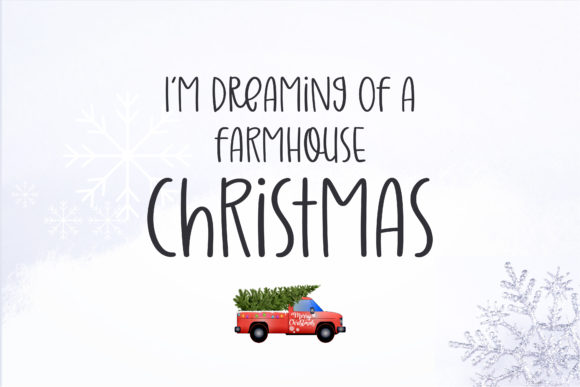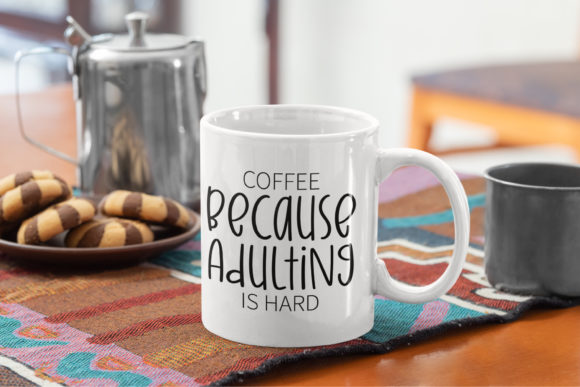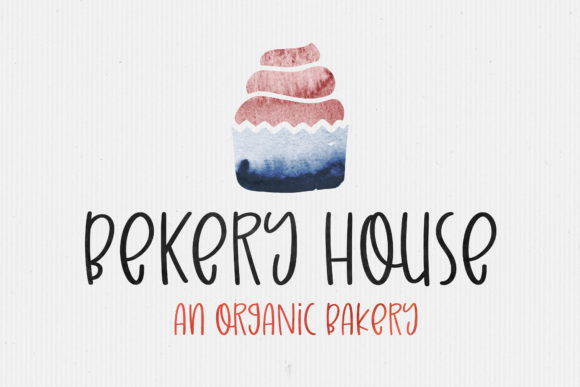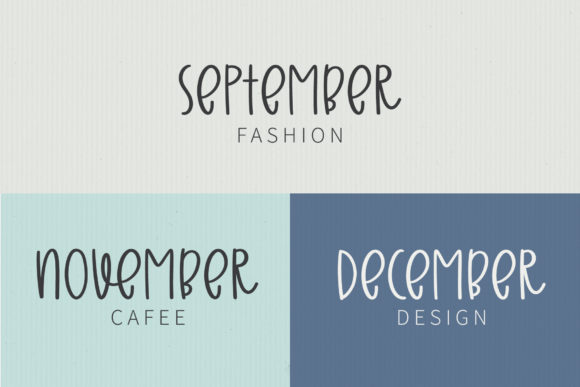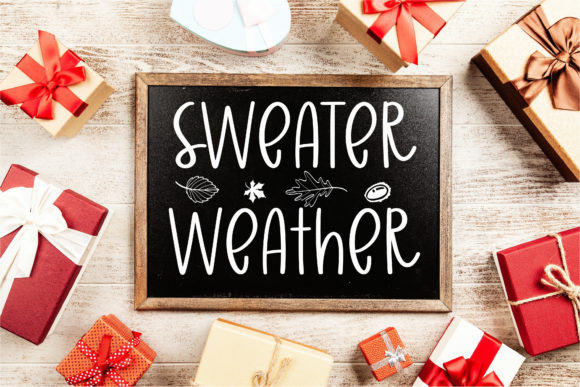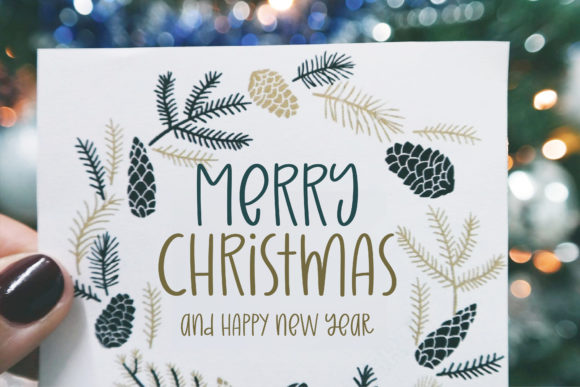
Introducing Farmhouse Christmas Font: A Sweet and Friendly Handwritten Delight
Are you looking for a font that captures the essence of the holiday season with a touch of rustic charm? Look no further than the Farmhouse Christmas font! This sweet and friendly handwritten font is perfect for designers and crafters who want to add a personal touch to their holiday projects. In this article, we’ll dive into the world of Farmhouse Christmas font and explore its features, uses, and benefits.
A Natural and Unique Style
Farmhouse Christmas font boasts a natural and unique style that makes it incredibly fitting for a wide range of designs. Its handwritten charm is reminiscent of a warm and cozy holiday evening by the fireplace. The font’s rustic feel is perfect for creating a sense of nostalgia and warmth in your designs, making it ideal for holiday projects, invitations, and decorations.
One of the standout features of Farmhouse Christmas font is its versatility. Its natural and unique style allows it to be paired with a variety of design elements, from simple and elegant to bold and playful. Whether you’re creating a holiday card, a festive banner, or a cozy winter scene, Farmhouse Christmas font is the perfect choice.
The only limit to using Farmhouse Christmas font is your imagination! With its sweet and friendly tone, you can create a wide range of designs that capture the spirit of the holiday season. Here are a few ideas to get you started:
- Holiday Cards and Invitations: Use Farmhouse Christmas font to create personalized holiday cards and invitations that will make your loved ones feel special.
- Festive Banners and Signs: Create eye-catching banners and signs with Farmhouse Christmas font to add a touch of holiday cheer to your home or business.
- Winter Wonderland Scenes: Use Farmhouse Christmas font to create cozy winter wonderland scenes, complete with snowflakes, pinecones, and holly.
- Crafting and DIY Projects: Add a personal touch to your crafting and DIY projects, such as ornaments, gift tags, and decorations, with Farmhouse Christmas font.
Farmhouse Christmas font offers a range of benefits for designers and crafters, including:
- Easy to Read and Write: Farmhouse Christmas font is clear and easy to read, making it perfect for body text and headlines.
- Highly Versatile: Farmhouse Christmas font can be used for a wide range of design projects, from digital files to print materials.
- Unique and Eye-Catching: Farmhouse Christmas font adds a touch of personality to your designs, making them stand out from the crowd.
- Time-Saving: With Farmhouse Christmas font, you can create professional-looking designs in no time, saving you time and effort.
In conclusion, Farmhouse Christmas font is a sweet and friendly handwritten font that’s perfect for designers and crafters who want to add a touch of rustic charm to their holiday projects. Its natural and unique style makes it incredibly versatile, and its benefits include ease of use, high versatility, and a unique and eye-catching appearance. So why wait? Get creative with Farmhouse Christmas font and make this holiday season one to remember!